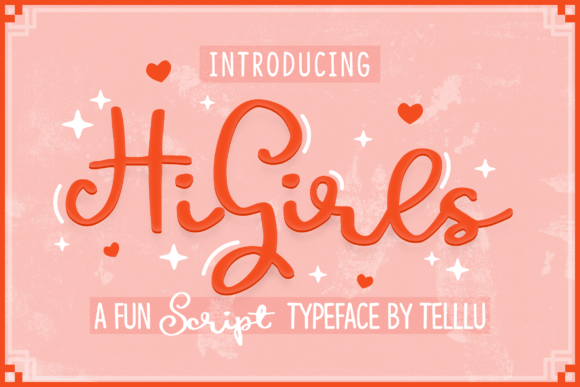
Hi Girls Font: A Fun and Unique Script Font for Your Creative Projects
Are you looking for a font that can add a touch of fun and personality to your creative projects? Look no further than Hi Girls Font, a unique and playful script font that is sure to make your designs stand out. In this article, we’ll take a closer look at Hi Girls Font, its features, and how you can use it to take your designs to the next level.
What is Hi Girls Font?
Hi Girls Font is a fun and unique script font that is perfect for adding a touch of personality to your designs. With its playful and whimsical style, this font is sure to capture the attention of your audience and leave a lasting impression. Whether you’re designing a logo, creating a social media post, or working on a branding project, Hi Girls Font is a great choice.
Key Features of Hi Girls Font
So, what makes Hi Girls Font so special? Here are some of its key features:
- Unique and Playful Style: Hi Girls Font has a one-of-a-kind style that is sure to make your designs stand out. Its playful and whimsical style is perfect for adding a touch of fun and personality to your projects.
- Script Font: Hi Girls Font is a script font, which means it’s perfect for adding a touch of elegance and sophistication to your designs.
- High-Quality Design: Hi Girls Font is designed with high-quality and attention to detail, ensuring that it looks great in any context.
- Versatile: Hi Girls Font is a versatile font that can be used in a variety of contexts, from logos and branding to social media posts and more.
How to Use Hi Girls Font
Now that we’ve covered the features of Hi Girls Font, let’s talk about how to use it. Here are some ideas for using this fun and unique script font:
- Logos and Branding: Hi Girls Font is perfect for creating logos and branding materials that need to make a statement.
- Social Media Posts: Add a touch of personality to your social media posts with Hi Girls Font.
- Headlines and Titles: Use Hi Girls Font to create eye-catching headlines and titles that grab attention.
- Signs and Banners: Hi Girls Font is a great choice for signs and banners that need to stand out.
Benefits of Using Hi Girls Font
So, why should you choose Hi Girls Font for your creative projects? Here are some benefits of using this font:
- Adds Personality: Hi Girls Font adds a touch of personality and whimsy to your designs.
- Grabs Attention: This font is sure to grab attention and make your designs stand out.
- Versatile: Hi Girls Font can be used in a variety of contexts, from logos and branding to social media posts and more.
- Easy to Read: Despite its playful style, Hi Girls Font is easy to read and understand.
Tips for Using Hi Girls Font Effectively
Here are some tips for using Hi Girls Font effectively:
- Use it Sparingly: While Hi Girls Font is a fun and unique font, it’s best to use it sparingly to avoid overwhelming your designs.
- Pair it with Other Fonts: Consider pairing Hi Girls Font with other fonts to create a unique and visually appealing design.
- Experiment with Colors: Don’t be afraid to experiment with different colors and textures to add depth and interest to your designs.
- Keep it Simple: While Hi Girls Font is a playful font, it’s best to keep your designs simple and easy to understand.
Hi Girls Font in Action
So, what does Hi Girls Font look like in action? Here are some examples of how this font can be used:
- Example 1: Logo Design: Use Hi Girls Font to create a fun and unique logo that stands out.
- Example 2: Social Media Post: Add a touch of personality to your social media posts with Hi Girls Font.
- Example 3: Headline: Use Hi Girls Font to create eye-catching headlines that grab attention.
In conclusion, Hi Girls Font is a fun and unique script font that is perfect for adding a touch of personality to your creative projects. With its playful and whimsical style, this font is sure to capture the attention of your audience and leave a lasting impression. Whether you’re designing a logo, creating a social media post, or working on a branding project, Hi Girls Font is a great choice.
Hi Girls Font: The Perfect Choice for Your Creative Projects